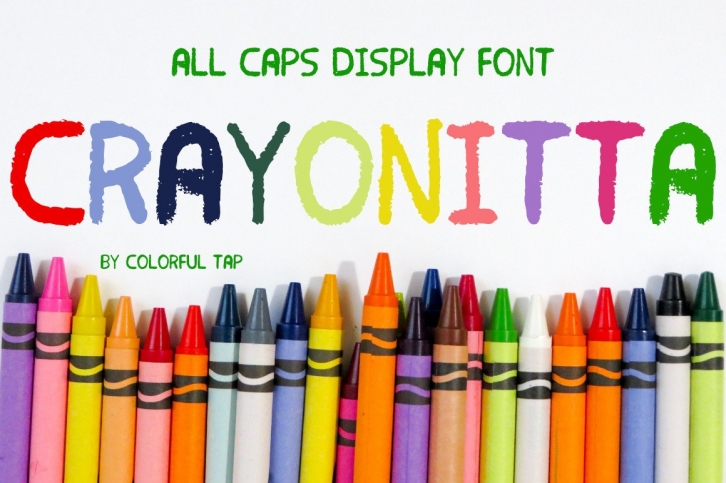
Crayonitta is a fun and playful display font. Whether you use it for cartoon-related designs, children games or just any creation that requires a lovely touch, this font will be an amazing choice.